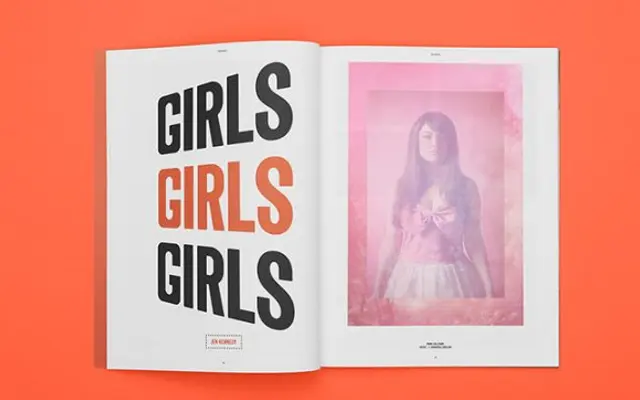
More Gothic
A grotesque sans from Canadian foundry Feedtype, drawing on the tradition of 19th-century gothic lettering.
More Gothic sits within the grotesque sans tradition, referencing the bold, legible letterforms associated with early American and Canadian wood type. The family appears to offer a restrained set of styles suited to display and editorial applications. As a product of Feedtype, it reflects the foundry's focus on type rooted in North American graphic history.
The name and page context indicate a grotesque sans-serif in the tradition of 19th-century wood type and gothic lettering, consistent with the broader grotesque category.